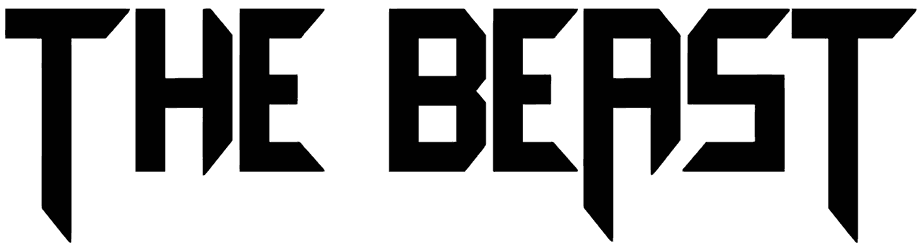
The Beast Font
The Beast font is an excellent choice if you are looking for an action font to impress your audience at first glance. This techno font has a powerful feeling and is memorable to the viewers.
You may use The Beast font for several occasions, such as movie titles, video games, and posters, while it does not support lowercase letters. This sci-fi font has a strong theme due to its bold letters’ sharp and geometric form.